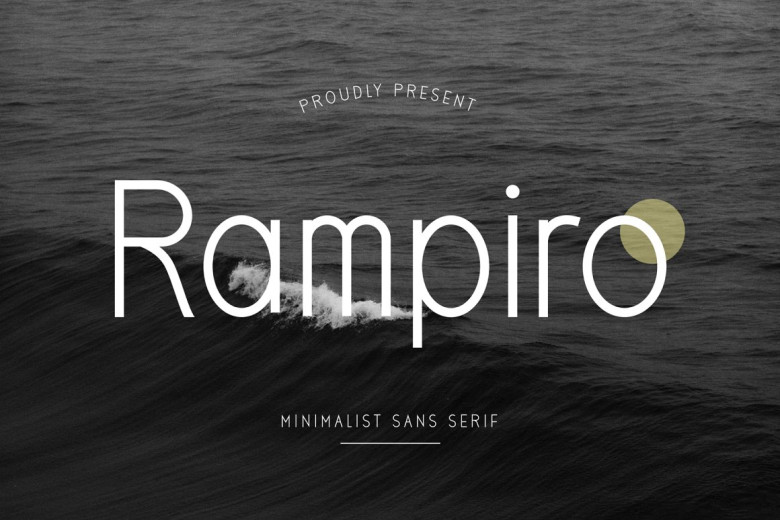
Rampiro Font
“Rampiro”, also known as, is an elegant yet minimal sans-serif font suitable for logos, social media posts and advertisements, product packaging designs, wedding invitations, labels, product designs, photography watermarks and stationery applications.
Rampiro Sans Serif Font